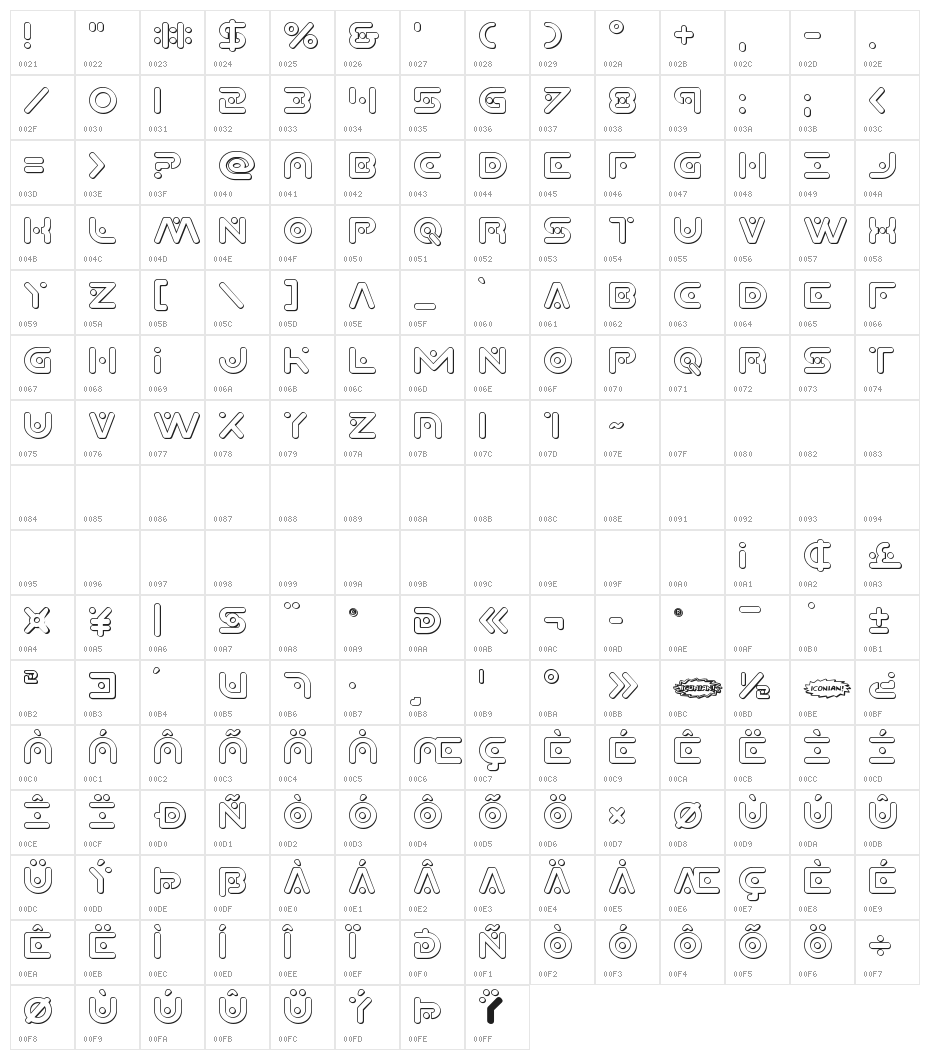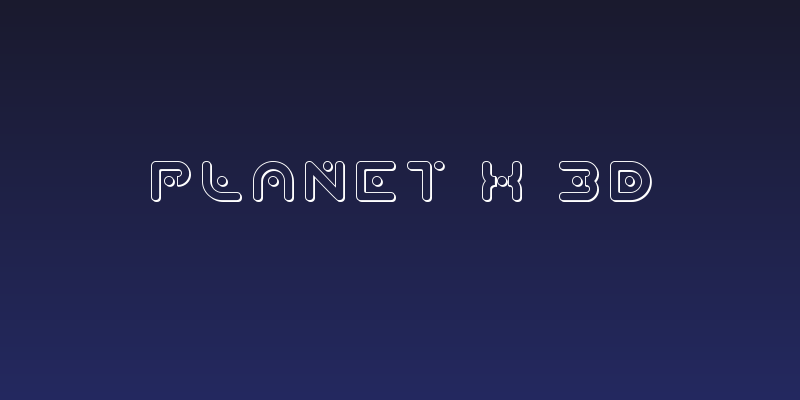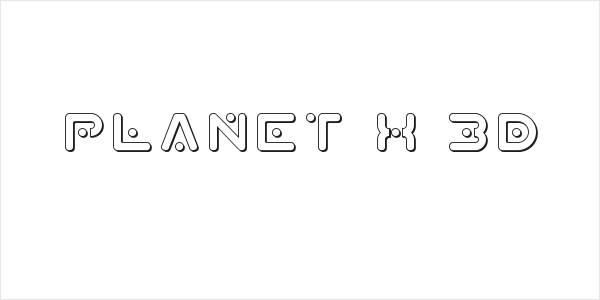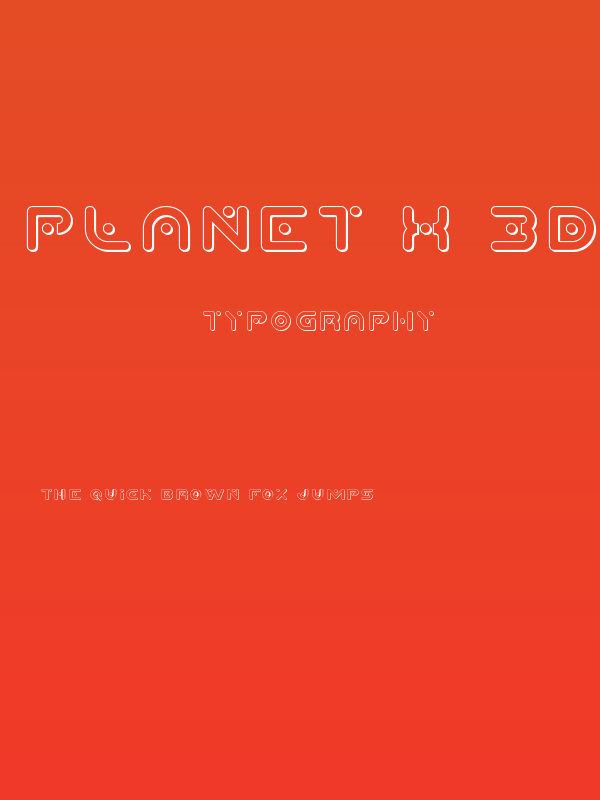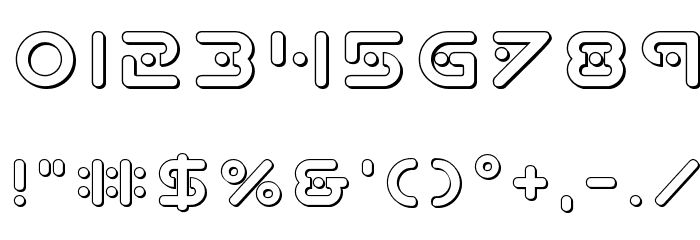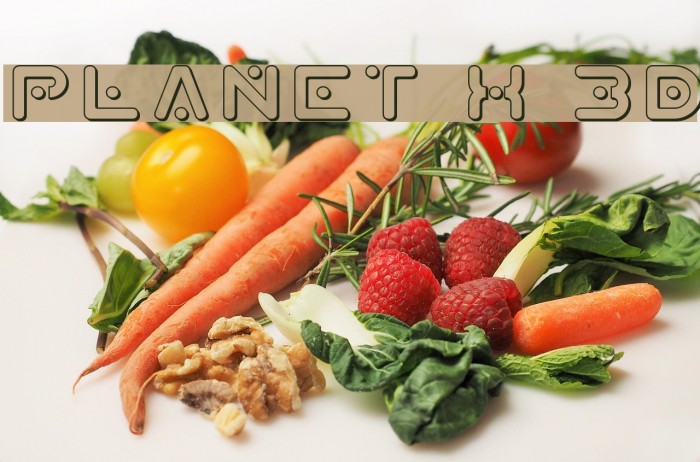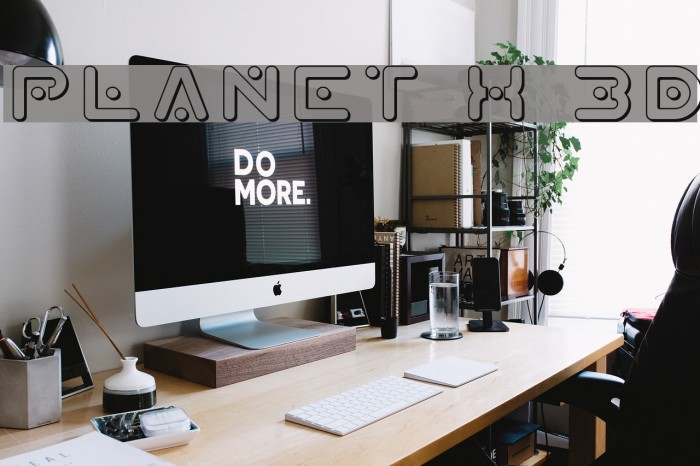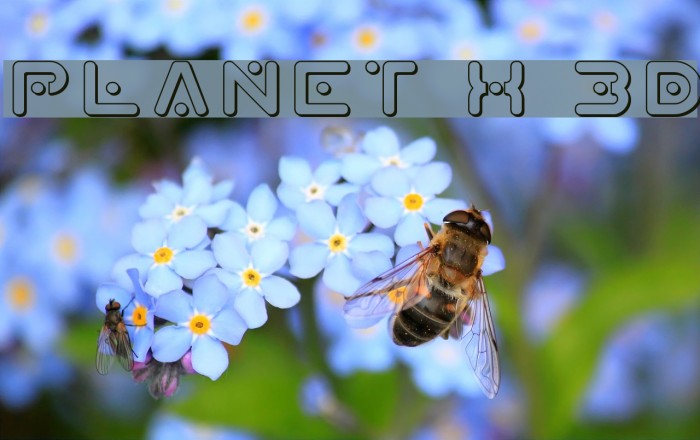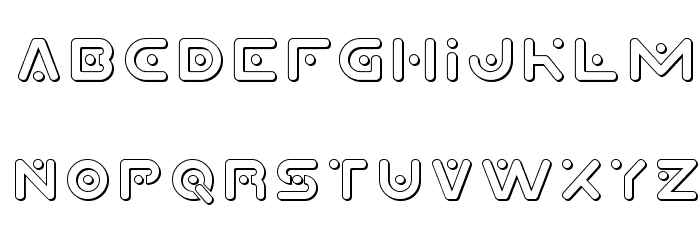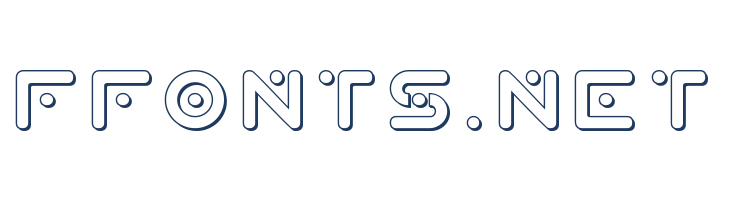
Planet X 3D Font
Planet X 3D Description
This font features a futuristic and geometric design with a three-dimensional effect. Each character is outlined with a consistent stroke width, creating a hollow appearance that emphasizes its modern aesthetic. The letters and numbers are crafted with rounded edges and a distinct, playful style that suggests movement and depth. The special characters maintain the same design principles, ensuring a cohesive look across all glyphs. This font is ideal for projects that require a bold and innovative visual impact.
| Proposed Projects | Ideal for sci-fi themed designs, tech branding, video game titles, and modern posters. |